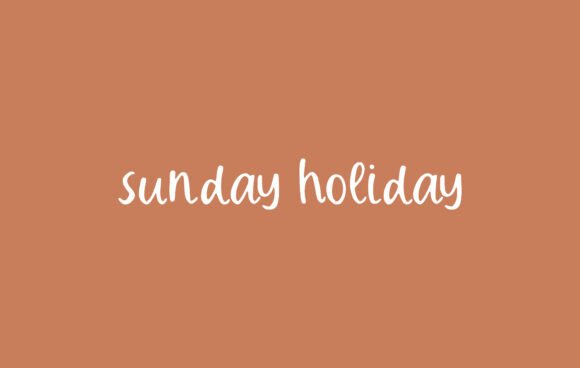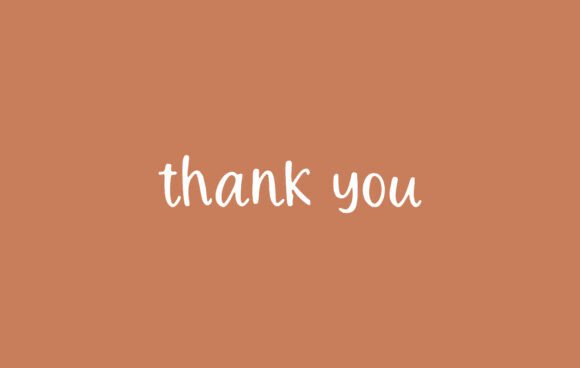
The Glue Font: A Romantic Touch for Your Creative Projects
Have you ever been in the middle of a design project, pouring your heart and soul into it, only to get stuck on one thing: finding the perfect font? I certainly have! It was during one of those moments that I stumbled upon the Glue font, and let me tell you, it was love at first sight! 😍
Glue font is an authentic handwritten font with a romantic touch, expertly designed to be a true favorite among designers, crafters, and creative hobbyists. Its unique charm and versatility have the potential to take your creative ideas to the highest level. In this article, we’ll dive into the world of Glue font, exploring its features, uses, and everything in between.
A Personal Review: What I Love About Glue Font
So, what makes Glue font so special? Here are a few things that I absolutely love about it:
- ✨ Legibility: Glue font is incredibly easy to read, making it perfect for both title and body text.
- ✅ Romantic touch: The font’s handwritten style adds a touch of warmth and personality to any design.
- 💕 Versatility: Glue font can be used for a wide range of projects, from magazine headlines and social media graphics to branding, wedding invitations, and cards.
While Glue font is an amazing addition to any design project, there are a few things to keep in mind:
- ⚠️ Limited use in very small sizes: Due to its handwritten nature, Glue font may not be the best choice for very small text sizes, such as captions or fine print.
- 🤔 Kerning issues: As with any font, you may need to adjust the kerning to ensure that the text looks balanced and visually appealing.
- Experiment with OpenType features, such as ligatures and stylistic alternates, to add more personality to your text.
While the true story behind Glue font’s creation is unknown, it’s easy to imagine that it was designed with love and care. Perhaps the designer, inspired by the beauty of handwritten letters, set out to create a font that would bring a touch of romance to any design project. Whatever the inspiration, Glue font is undoubtedly a gem that deserves to shine.
| Font Name | Glue Font |
| What is Glue font best used for? | Glue font is perfect for a wide range of design projects, including magazine headlines, social media graphics, branding, wedding invitations, and cards. |
| Is Glue font easy to read? | Yes, Glue font is incredibly legible, making it suitable for both title and body text. |
In conclusion, Glue font is a beautiful, versatile font that can add a touch of romance and personality to any design project. With its ease of use, legibility, and range of applications, it’s no wonder that Glue font has become a favorite among designers, crafters, and creative hobbyists. So go ahead, give Glue font a try, and see how it can elevate your designs to the next level!